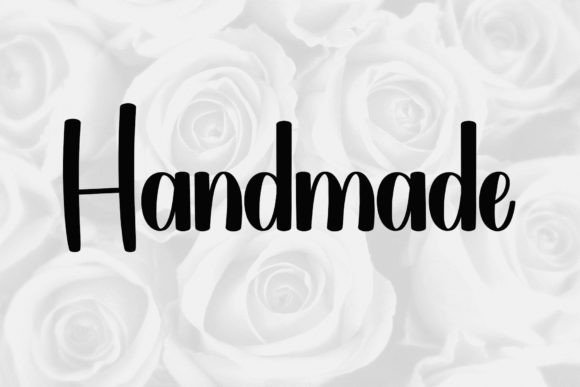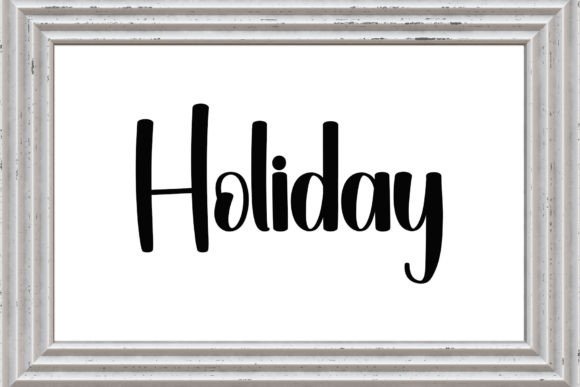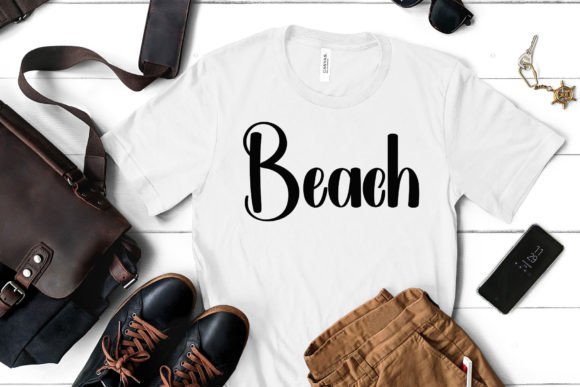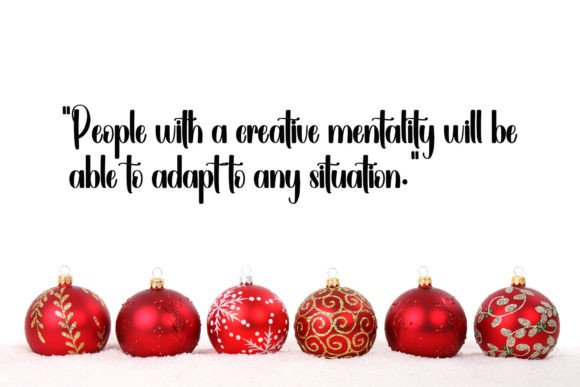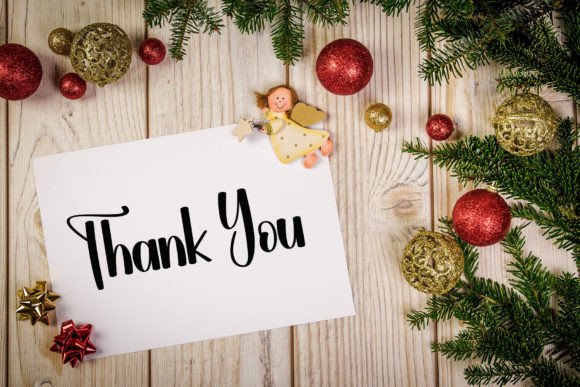
Unleash the Art of Elegant Design with Calligraphy Font
There’s something magical about the moment you decide to create something truly special – the spark of inspiration, the rush of excitement, and the thrill of bringing your vision to life. For many designers, it’s the perfect blend of art and technology that sets their imagination ablaze. And for those who crave a touch of elegance, there’s one font that stands out from the rest: the beautiful, handwritten Calligraphy Font.
With its delicate flourishes and refined strokes, the Calligraphy Font is more than just a font – it’s a way to add sophistication and poise to any design project. Whether you’re creating a wedding invitation, a branding package, or a digital graphic, this timeless font is sure to make your work stand out. Its versatility and unique style make it a valuable asset for designers looking to elevate their craft and create truly unforgettable designs.
Key Features of Calligraphy Font
- Font Styles: Available in various calligraphy styles, including Copperplate, Brush Script, and Spencerian Script.
- Character Set: Includes a wide range of characters, including uppercase and lowercase letters, numbers, punctuation, and special characters.
- Unique Characteristics: Features swashes, flourishes, and connecting strokes that mimic the look of traditional calligraphy, adding a touch of elegance and sophistication to any design.
Calligraphy Font Review
Overall, I think the Calligraphy Font has some beautiful aspects to it, but it also comes with some limitations. Here’s my honest review.
- Unique and elegant aesthetic: The font has a beautiful, cursive design that can add a touch of sophistication to any project.
- Highly customizable: The font can be adjusted to fit various styles and moods, making it versatile for different designs.
- Wide compatibility: The font can be easily used across different platforms, including web, print, and digital projects.
- Difficult to read at small sizes: The font’s intricate details can make it challenging to read when used at small font sizes.
- Limited legibility: The font’s ornate design can make it difficult to distinguish between certain letters, especially in certain contexts.
- Not suitable for body text: Due to its elaborate design, the font is best used for headings, titles, or other decorative elements, rather than body text.
Overall, the Calligraphy Font is a beautiful addition to any design project, but it’s essential to use it thoughtfully and consider its limitations. With the right application, it can add a touch of elegance and sophistication to your work.
Use calligraphy font to add a touch of elegance and sophistication to your designs.
Experiment with different font sizes and colors to create a unique look.
Combine calligraphy font with other decorative elements to create a visually appealing design.